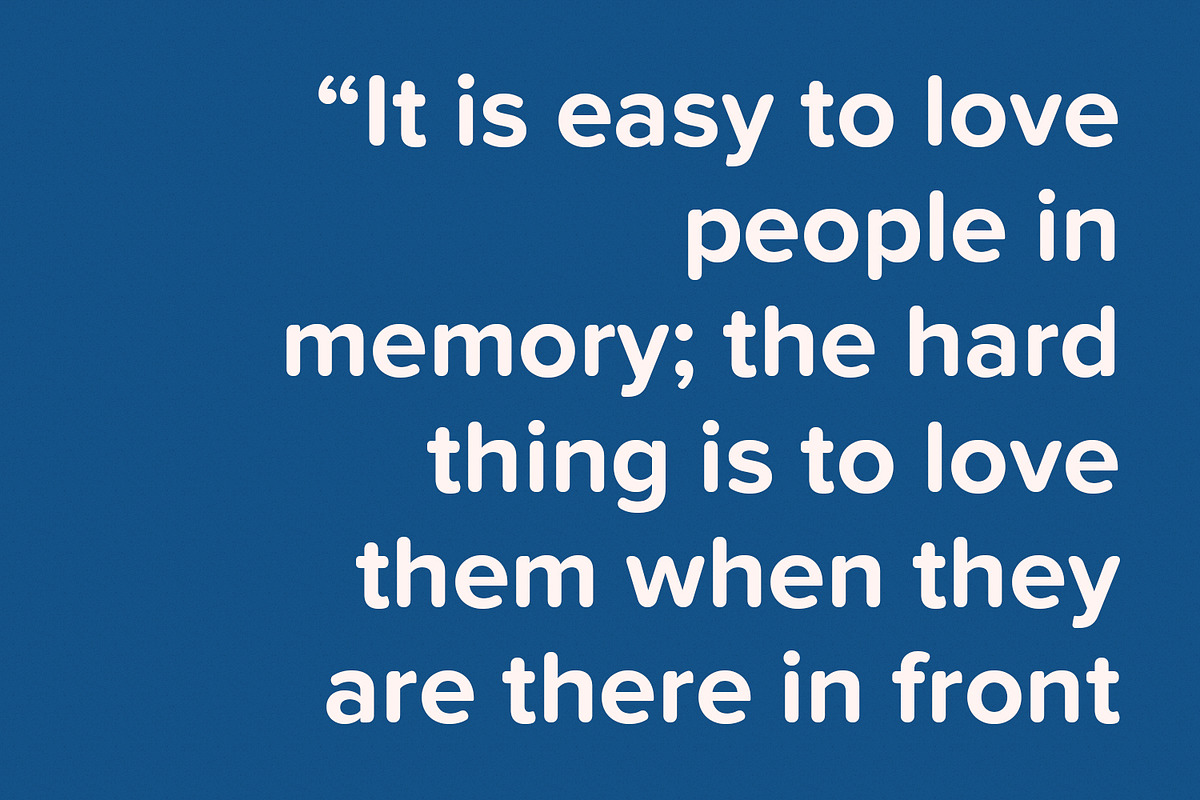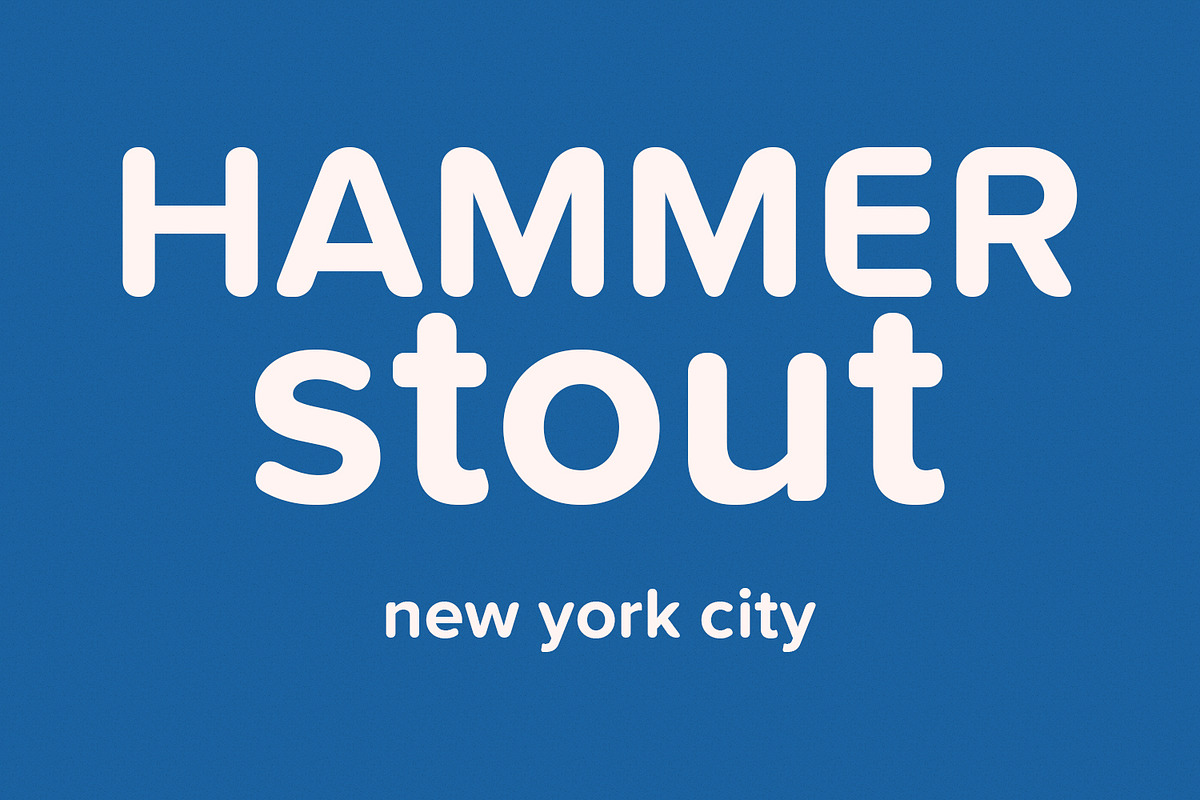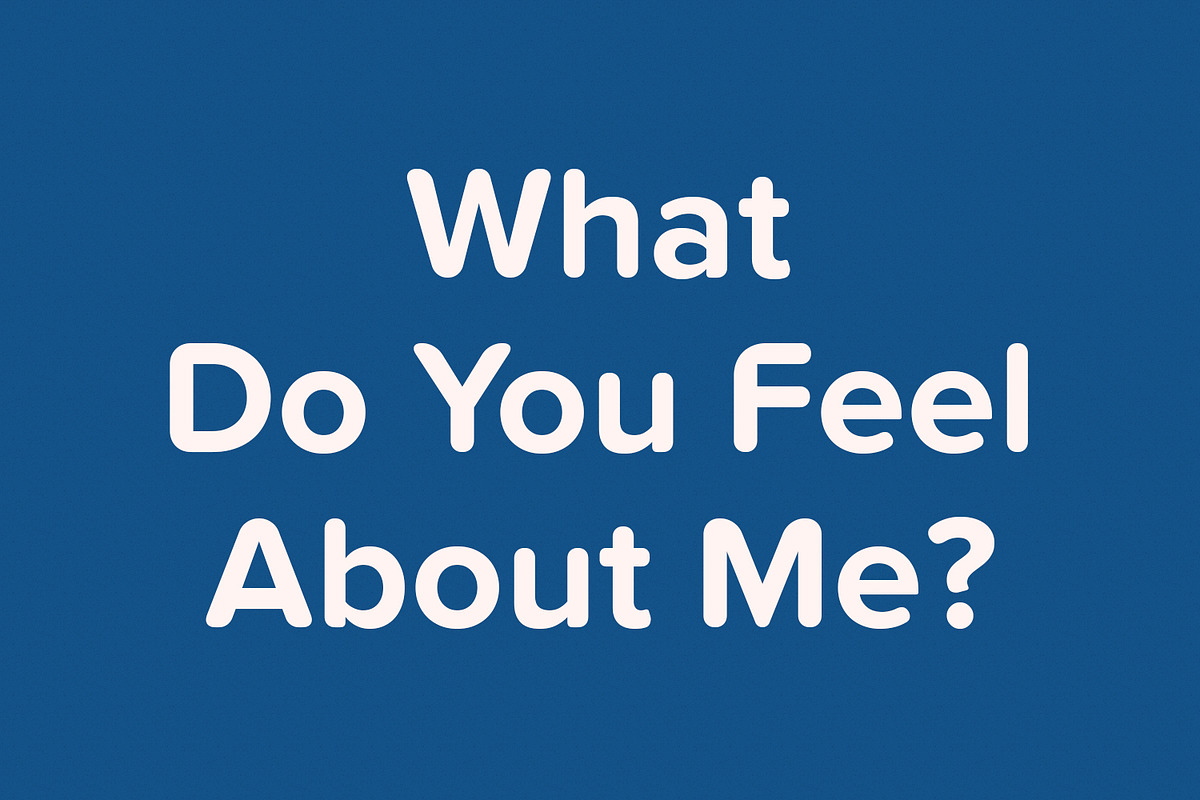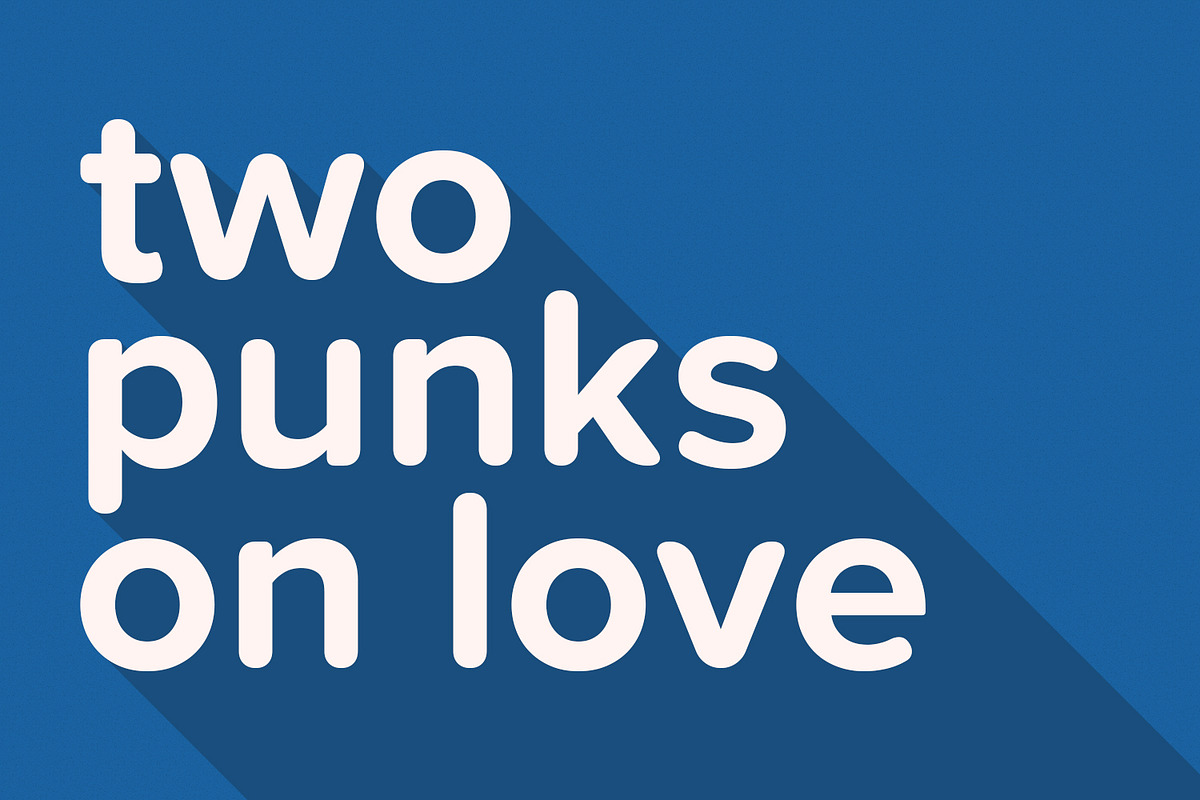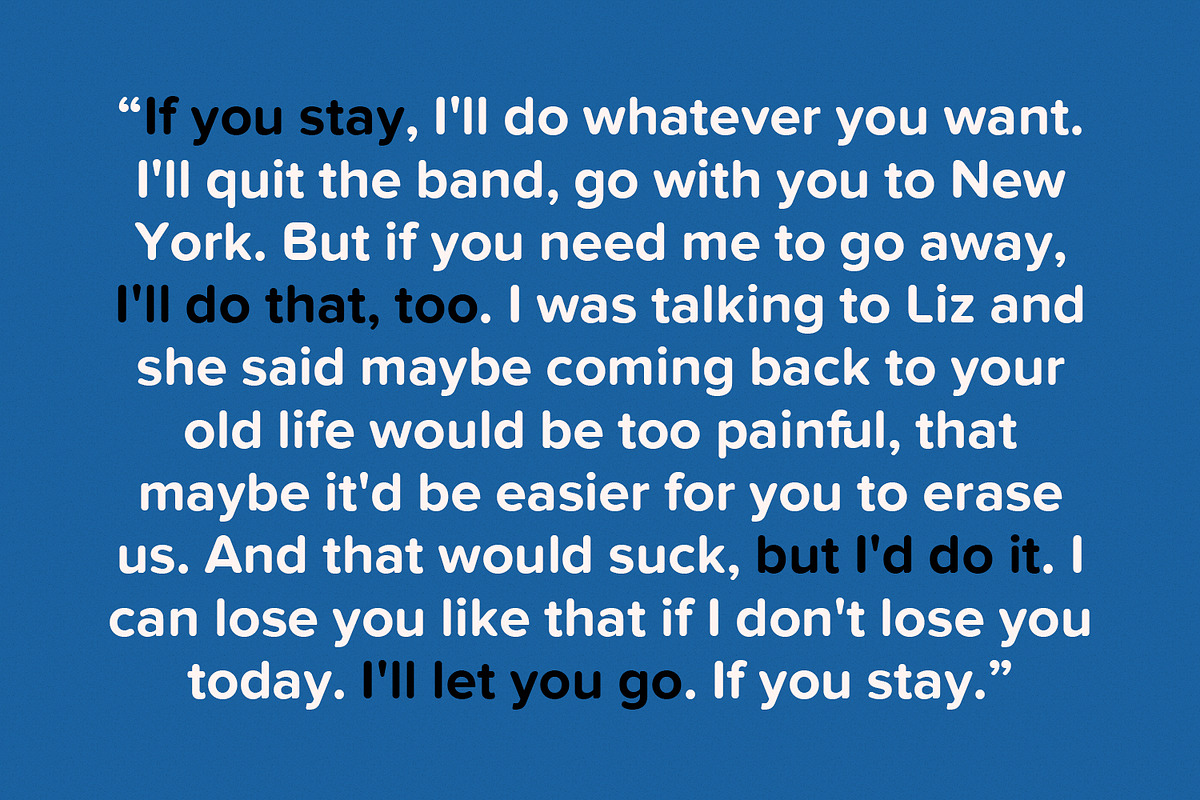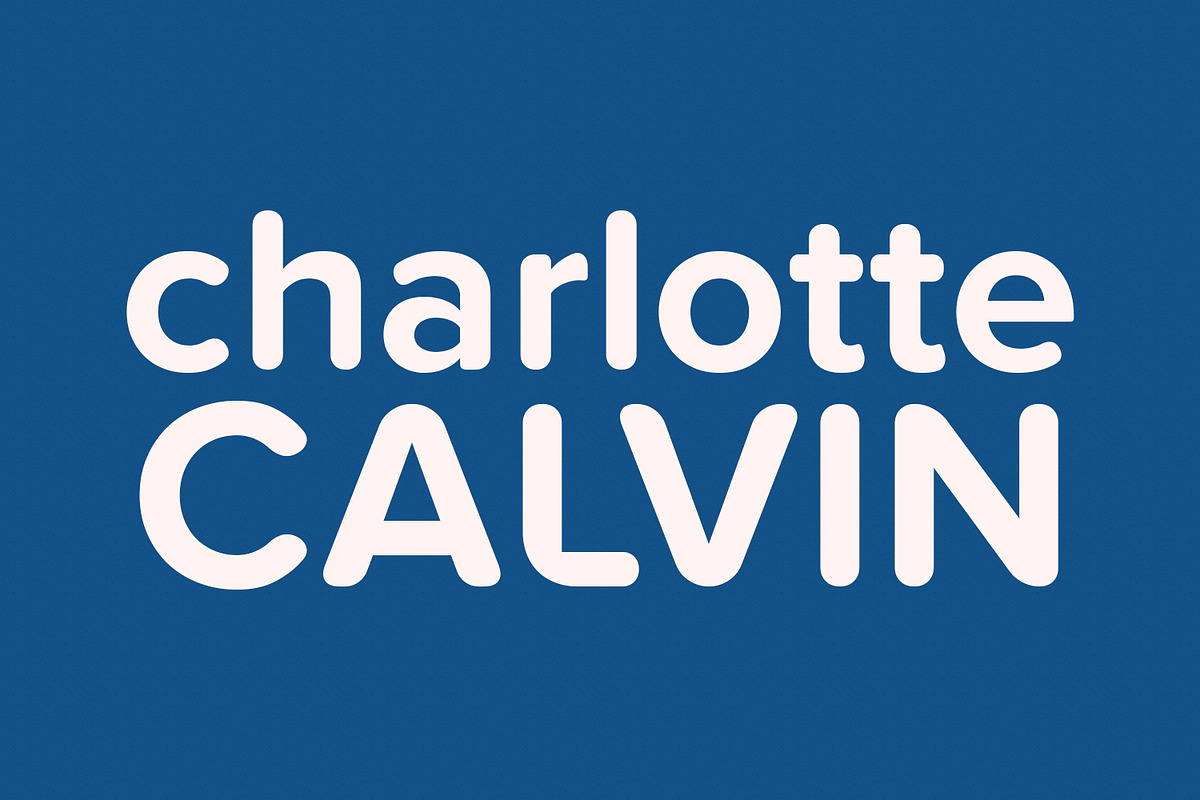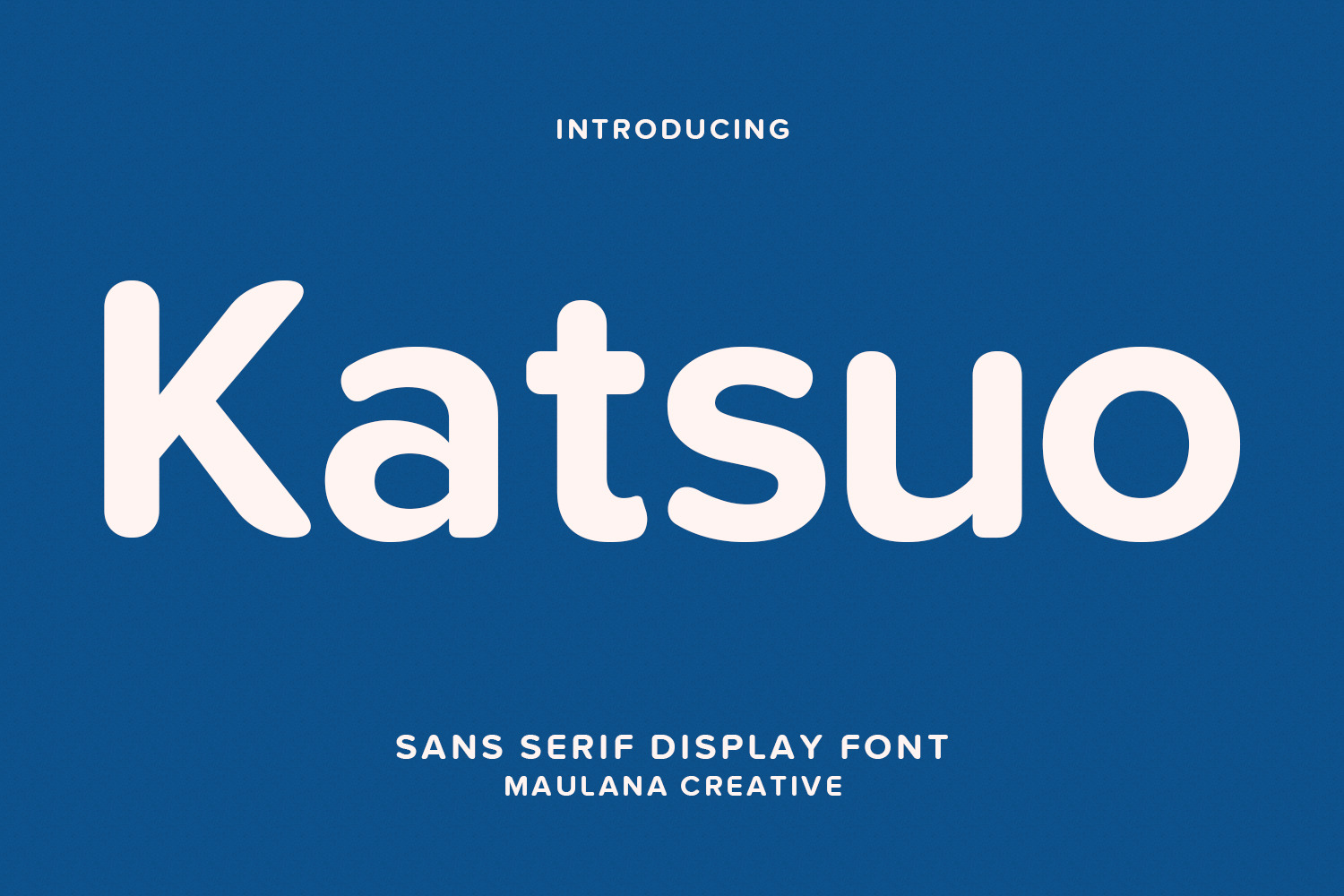
Katsuo Sans Display Font
Katsuo is a sans display font. With bold tall and sharp stroke, fun character with a bit of ligatures and alternates. To give you an extra creative work. Katsuo font support multilingual more than 100+ language. This font is good for logo design, Social media, Movie Titles, Books Titles, a short text even a long text letter and good for your secondary text font with sans or serif. Make a stunning work with Katsuo font.